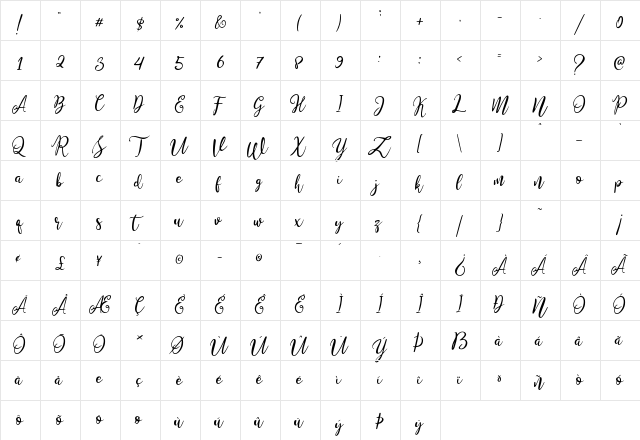
Stella Wilson Regular
| Designer | Lettersiro 2018 |
Design Context for Stella Wilson Typeface
Stella Wilson is a composed and adaptable typeface that performs quietly and consistently across a wide range of design contexts.